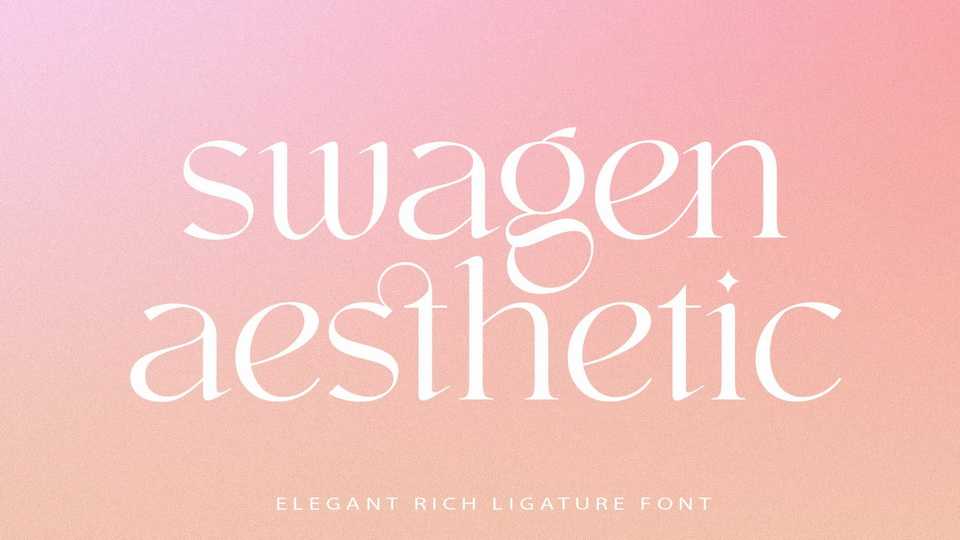
Download Swagen Aesthetic font, a luxurious typeface with a wealth of ligature in it and a very detailed neatness. Swagen Aesthetic font is perfect for your work to look elegant and luxurious.
Designer: Dean Nugraha